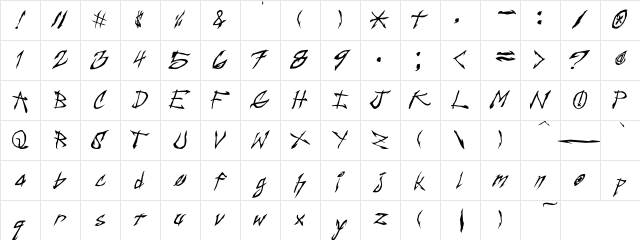
KEYBOLTZ Regular
Design Context for KEYBOLTZ
KEYBOLTZ is a composed and adaptable typeface that performs quietly and consistently across a wide range of design contexts.